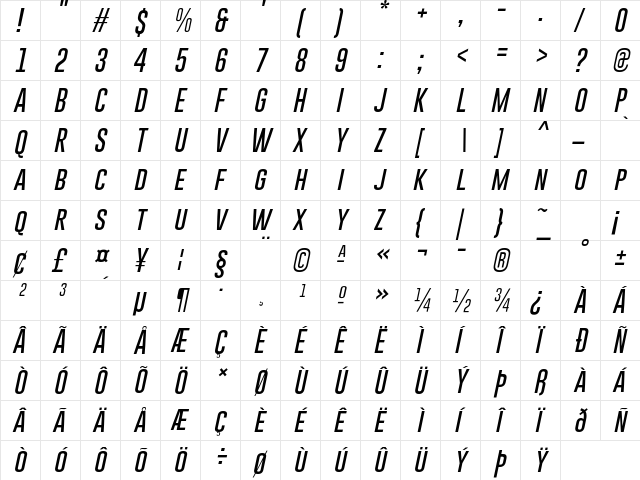
Gobold Thin Italic
| Designer | Situjuh Nazara |
Design Context for Gobold Thin Typeface
Gobold Thin offers clean, dependable letterforms without strong stylistic allegiance, making it a practical choice for designers who need flexibility. The slanted form adds forward momentum and visual energy. The heavy weight commands attention and anchors typographic hierarchies.
Pro Tip: Try Gobold Thin for annotation and caption copy alongside an upright companion — the contrast in angle creates a dynamic but ordered typographic system.